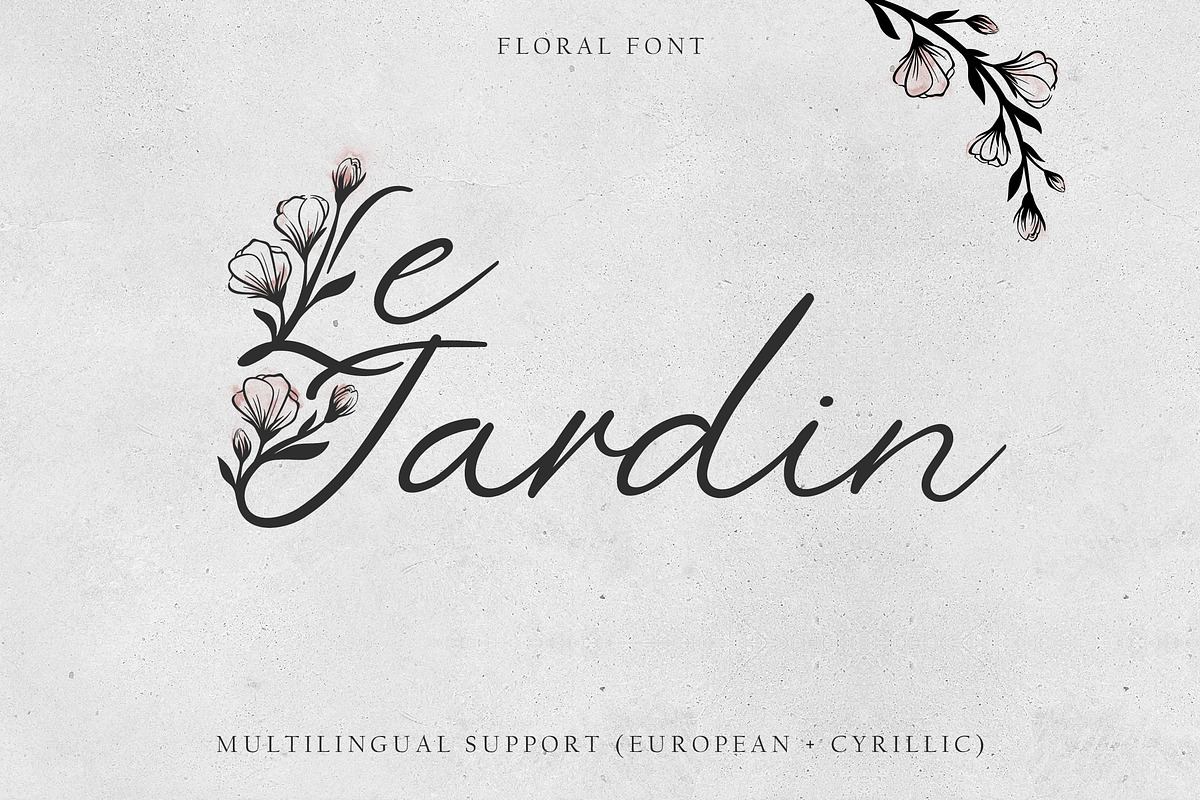
'Le Jardin' Floral Font Free Download is an elegant and charming typeface that features intricate floral embellishments, making it perfect for nature-inspired and romantic designs. With its graceful, flowing letterforms and detailed floral accents, this font is ideal for wedding invitations, greeting cards, branding for floral businesses, and any project that requires a delicate, artistic touch. Whether you're designing a sophisticated event invitation or a creative brand logo, 'Le Jardin' Floral Font Free Download allows you to explore its beauty in personal projects before purchasing a commercial license. Add a touch of nature and elegance to your designs with this beautifully crafted floral font.